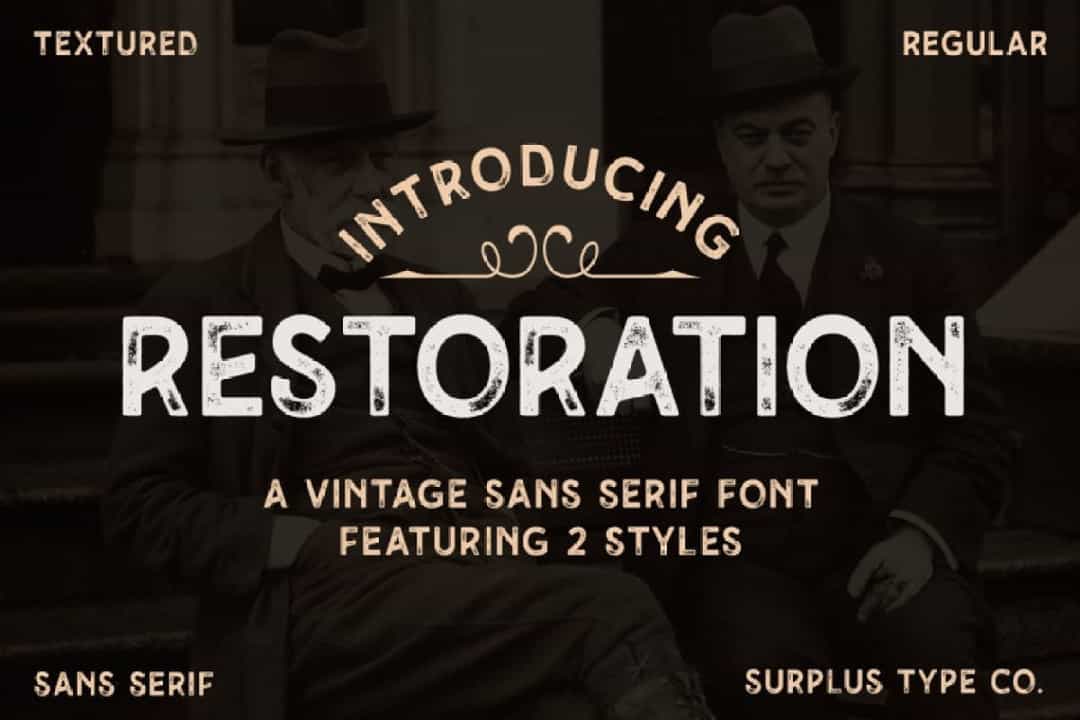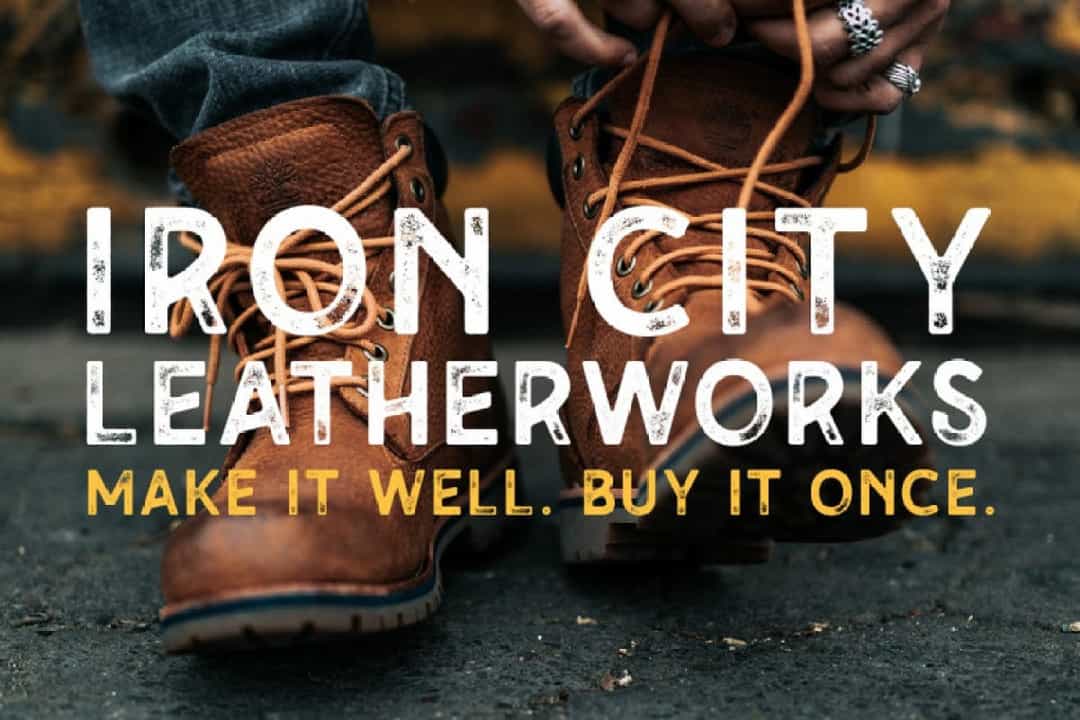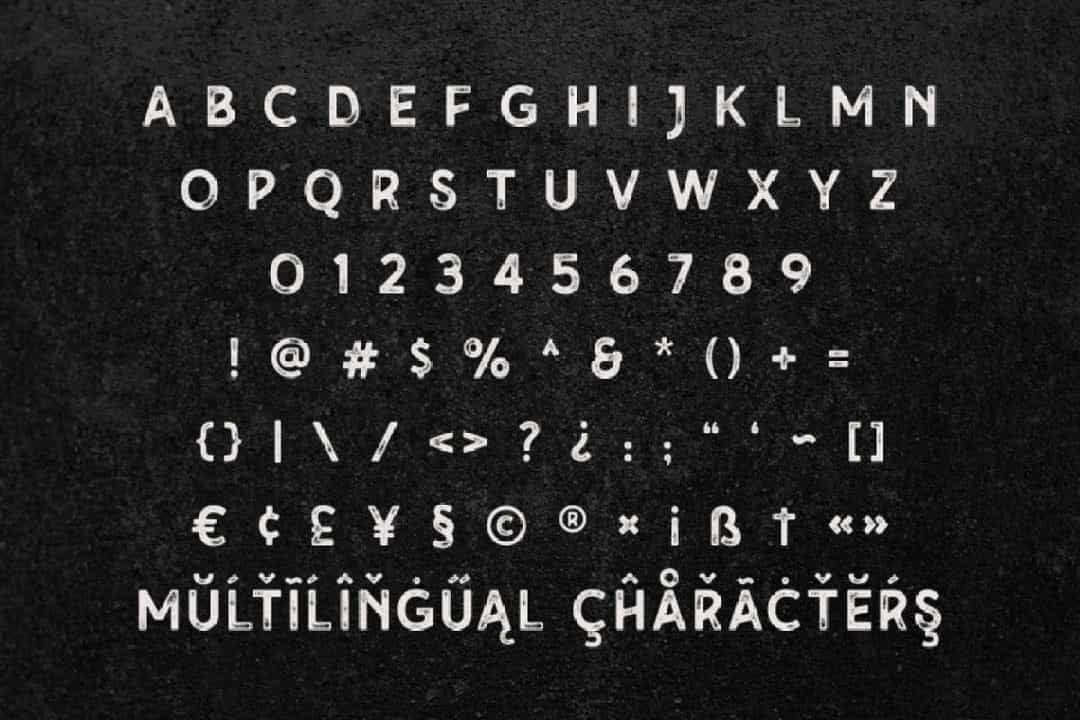
Restoration Font
Restoration is a two shape sans serif font that has the look of an old font with angled bars for the two shapes that make it stand out from other Vintage fonts. It comes with texture and without texture – so it is great for logos, branding titles, web design, marketing and advertising of all kinds!